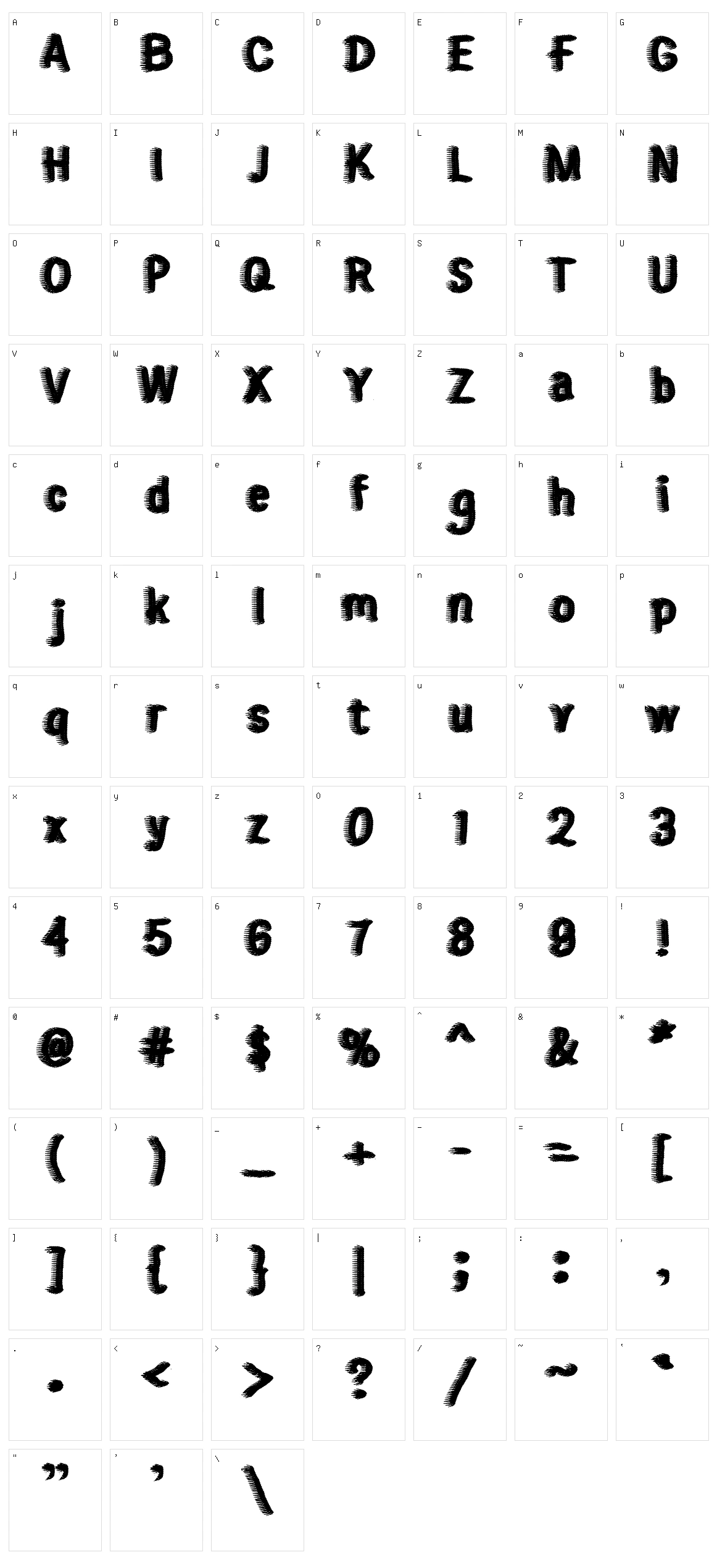
The free font Sweater is carefully designed by weknow, showcasing a thoughtful balance of creativity and usability and falls under the Eroded font style. When you download the ZIP file, it contains only 120.99 KB of font files, making it lightweight and quick to download. Please review the license details below to understand permitted usage and distribution rights. If license information is not available, we recommend using this font for personal projects only or contacting the author directly for commercial usage permissions.